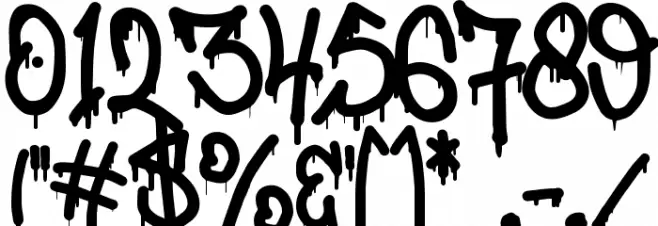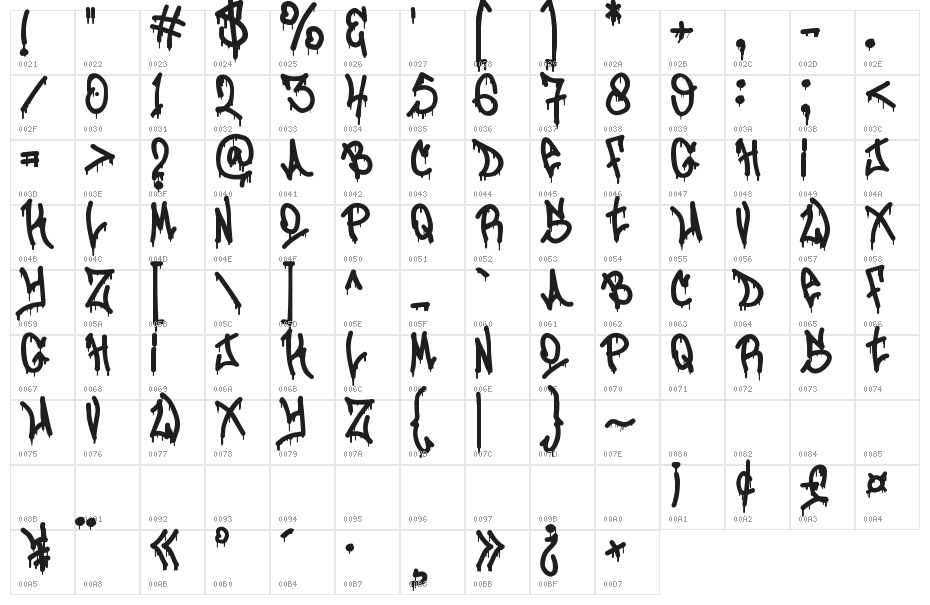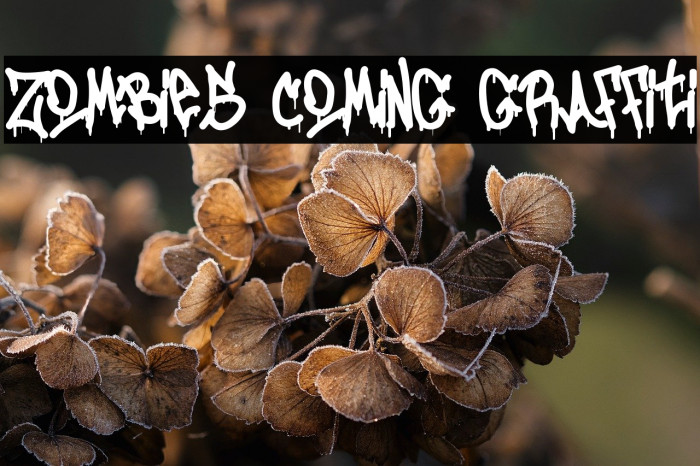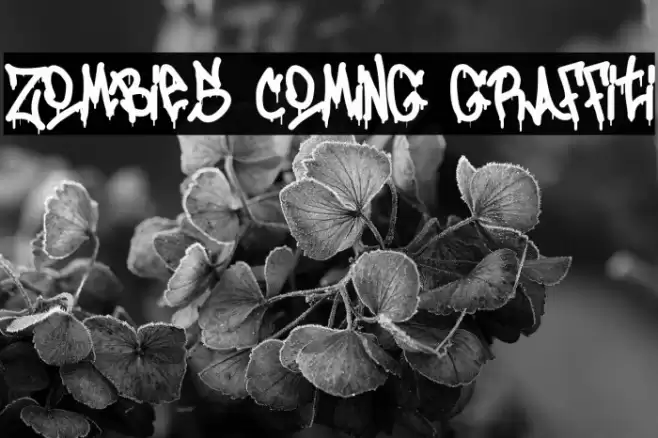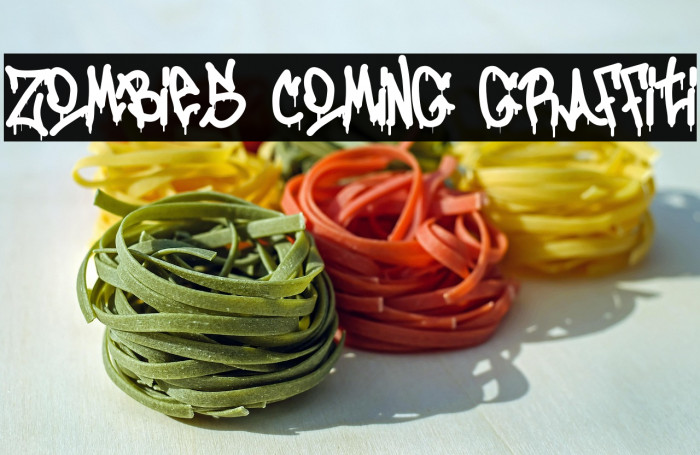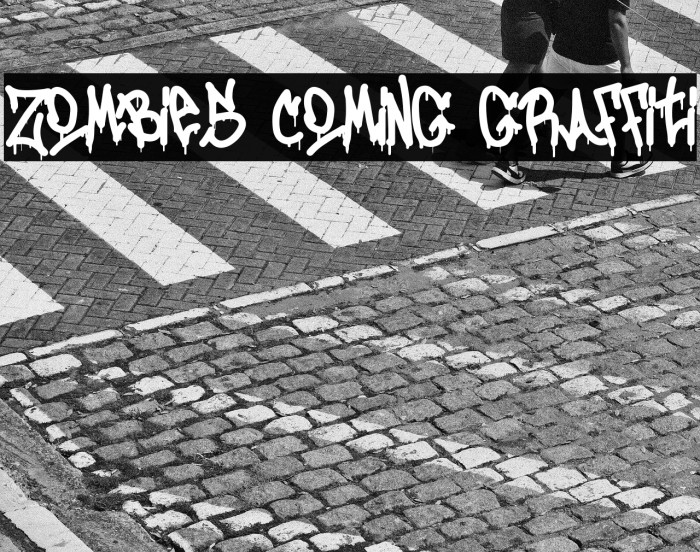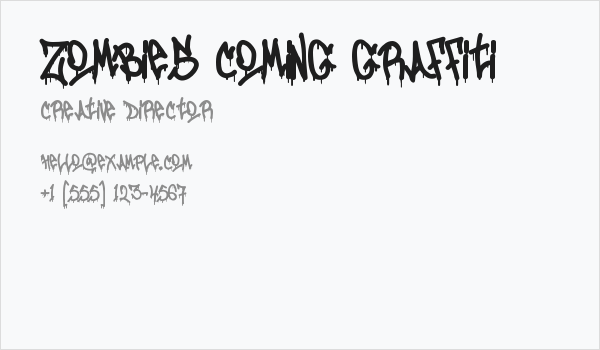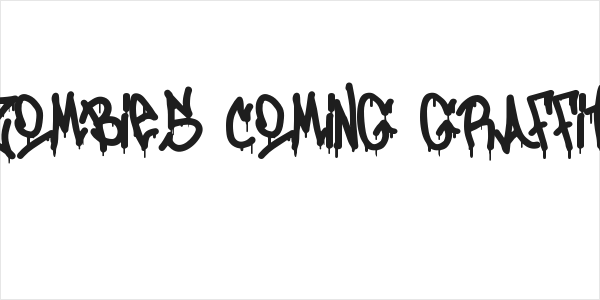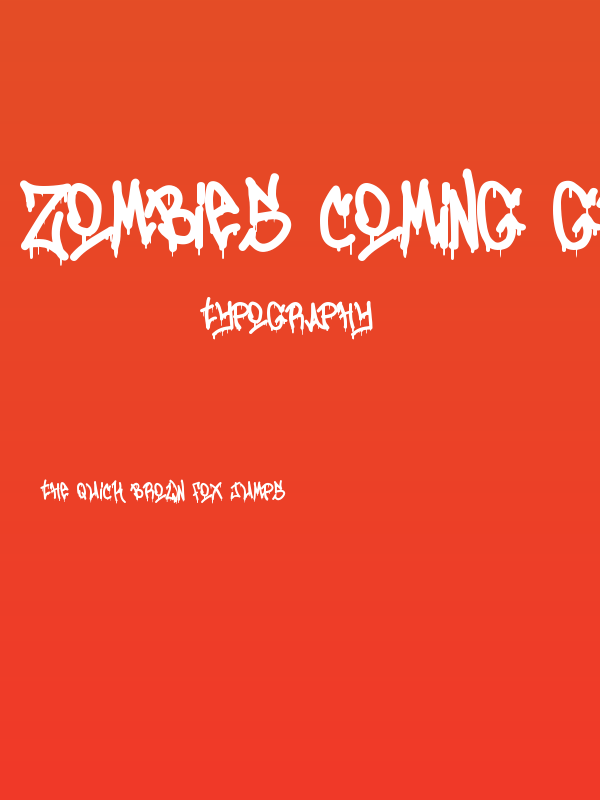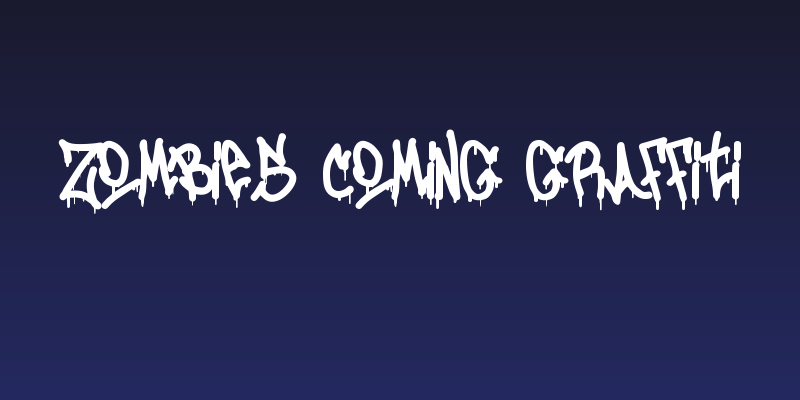
Zombies Coming Graffiti Font
Zombies Coming Graffiti Description
This graffiti-style font exudes a bold and rebellious energy, characterized by its dripping paint effect that mimics the look of freshly sprayed street art. The letters are irregular and dynamic, with sharp angles and exaggerated curves that create a sense of movement and urgency. The uppercase and lowercase letters maintain a consistent style, while the numbers and special characters integrate seamlessly with the overall aesthetic. This font captures the essence of urban culture and is perfect for projects that require a gritty, edgy vibe.
| Overall Style | Urban, Edgy, Rebellious |
| Proposed Projects | Ideal for street art posters, music album covers, urban-themed event flyers, and edgy branding projects. |